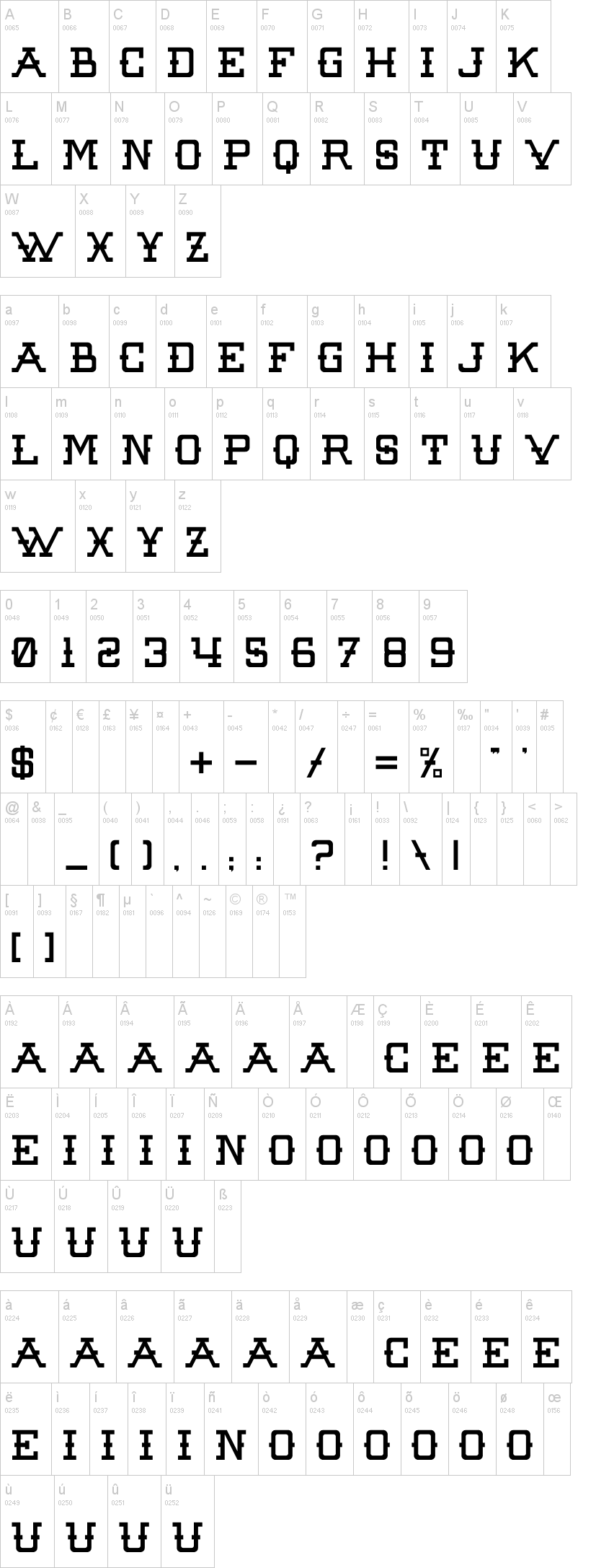
Note of the authorRaw Denim Audacity is a re-imagining of an athletic serif font as a western slab serif. The typeface was inspired by modern street wear. This modern western serif font features numbers, extended character set, and punctuation.